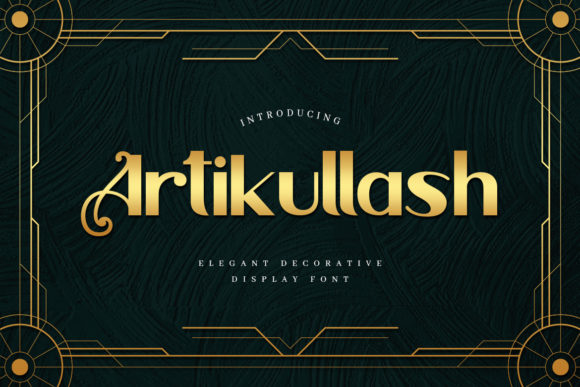
Behold, the Artikullash font, a masterpiece crafted by the visionary designers at naulicrea, ready to ignite your creative spirit and transform your digital designs into works of art.
Artikullash, a display font that radiates boldness and elegance, is meticulously engineered to elevate your design projects to unprecedented heights. Its carefully crafted glyphs, brimming with character and charisma, command attention and leave a lasting impression.
Unleash the power of Artikullash to elevate your brand's identity, leaving a mark of distinction and sophistication in the digital landscape. From sleek logos that exude timeless charm to alluring social media graphics that captivate audiences, Artikullash empowers you to craft a visual narrative that resonates deeply with your target audience.
Step into the realm of luxury and exclusivity, where Artikullash reigns supreme. This font's innate ability to convey opulence and grandeur makes it the perfect choice for high-end fashion brands, upscale hotels, and businesses seeking to project an aura of prestige and sophistication. Allow Artikullash to elevate your brand's image and establish a connection with discerning clientele who appreciate the finer things in life.
Beyond its undeniable aesthetic appeal, Artikullash is a versatile font that effortlessly adapts to a wide range of creative endeavors. Its versatility shines through in both digital and print applications, offering endless possibilities for expression. Whether you're designing captivating posters, brochures, or website layouts, Artikullash seamlessly blends with your vision, adding a touch of elegance and sophistication that sets your work apart.
Immerse yourself in the world of Artikullash, where creativity knows no bounds. Let this exceptional font ignite your imagination and guide you towards design excellence. With Artikullash as your creative companion, you'll discover a new realm of possibilities, transforming your artistic dreams into captivating realities.